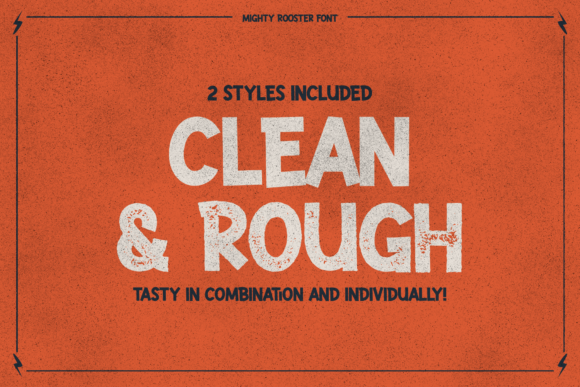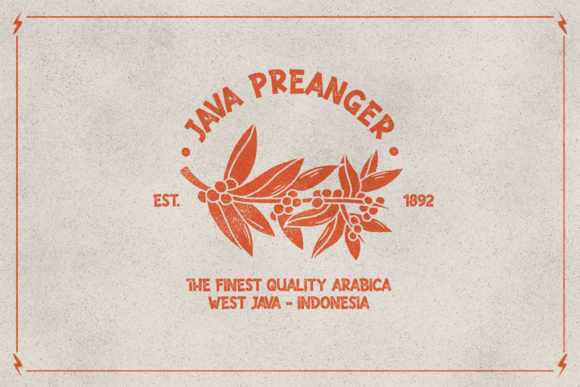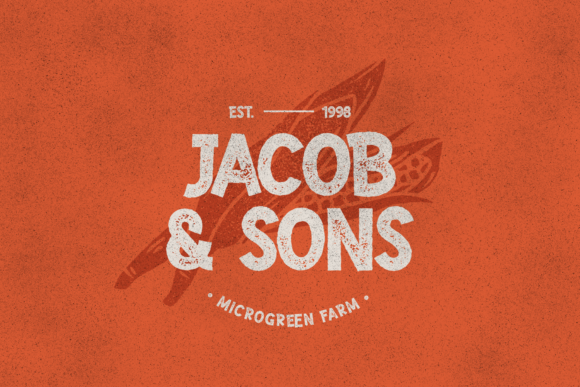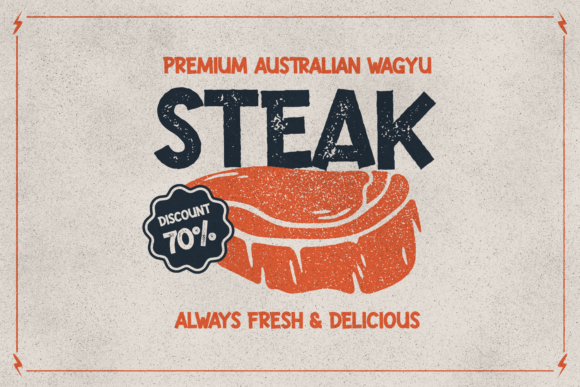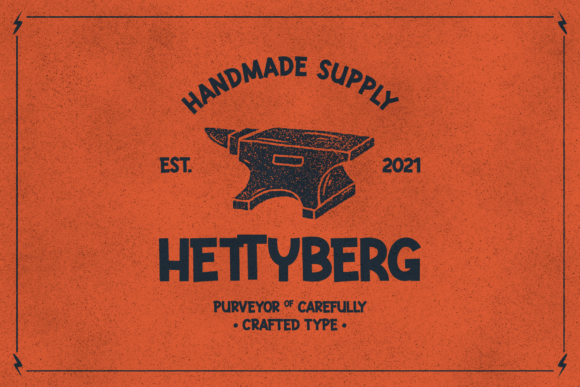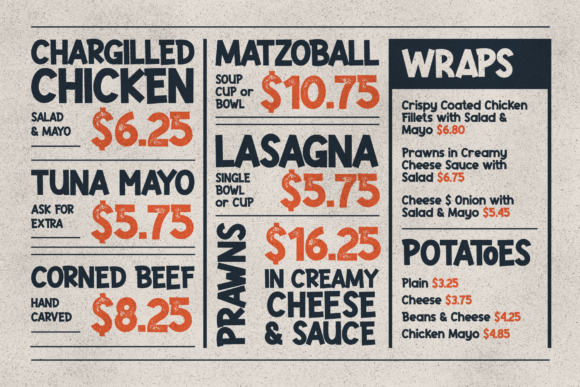
Introduction to Mighty Rooster Font
Have you ever been working on a creative project, pouring your heart and soul into it, and then, just as you’re about to add the final touches, you hit a roadblock? Maybe you’re searching for the perfect font to give your design that extra oomph, but nothing seems to fit. This is where the Mighty Rooster Font comes in – a bold, vintage styled display font that’s sure to elevate your design game.
With its thick, chunky letters and PUA encoding, this font is a treasure trove of creative possibilities. You can access all the glyphs and swashes with ease, allowing you to add a touch of personality to your designs. Whether you’re working on a graphic project, a logo, or just need a font for a social media post, the Mighty Rooster Font is a valuable resource that’s sure to deliver high-quality results.
Key Features of Mighty Rooster Font
- High-quality, unique design perfect for creative projects, such as posters, flyers, and brochures.
- Unique, hand-drawn style gives the font a distinctive and eye-catching look, ideal for adding personality to designs.
Honest Review: Mighty Rooster Font
I recently stumbled upon the Mighty Rooster Font and I’m excited to share my honest review. As a designer, I’m always on the lookout for high-quality design resources that can elevate my creative projects. The Mighty Rooster Font definitely fits the bill.
- ✨ High-quality design: The font is beautifully crafted with a unique, vintage aesthetic that’s perfect for adding a touch of personality to your designs.
- ✨ Versatile: The Mighty Rooster Font is incredibly versatile and can be used for a wide range of creative projects, from logos to posters to digital designs.
While the Mighty Rooster Font is an excellent design resource, there are a few limitations to consider: ⚠️ Limited font sizes, ⚠️ No bold or italic variations.
Overall, I’m impressed with the Mighty Rooster Font and would highly recommend it to designers looking for a unique, high-quality font for their creative projects.
Using in Creative Projects
Tips for Getting the Most Out of the Mighty Rooster Font
For the best results, use the Mighty Rooster Font in conjunction with other high-quality design resources, such as images and graphics. Experiment with different font sizes, styles, and combinations to create a unique and eye-catching design.